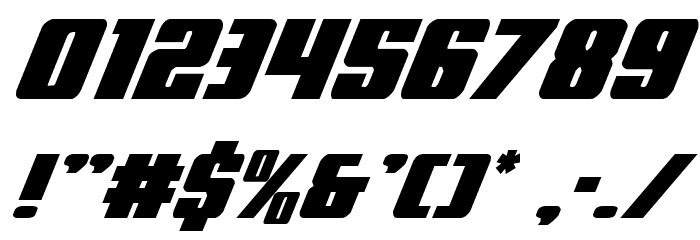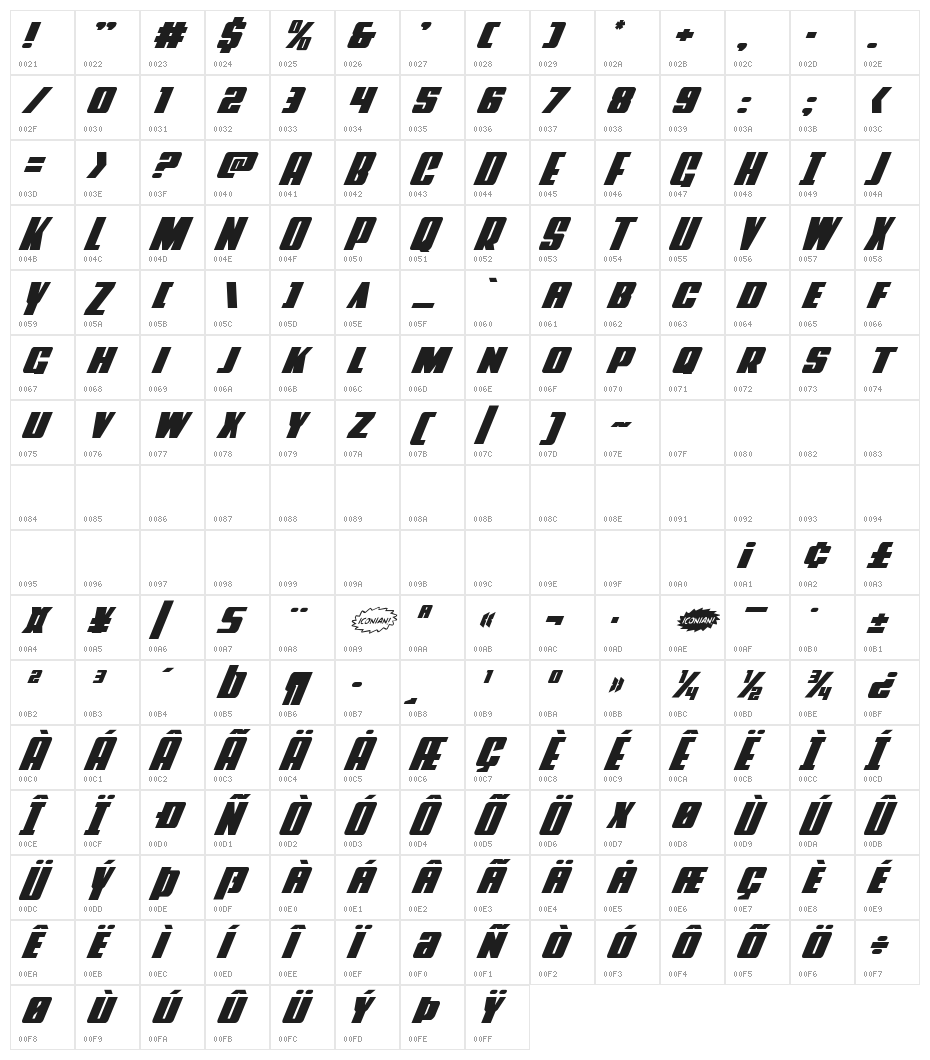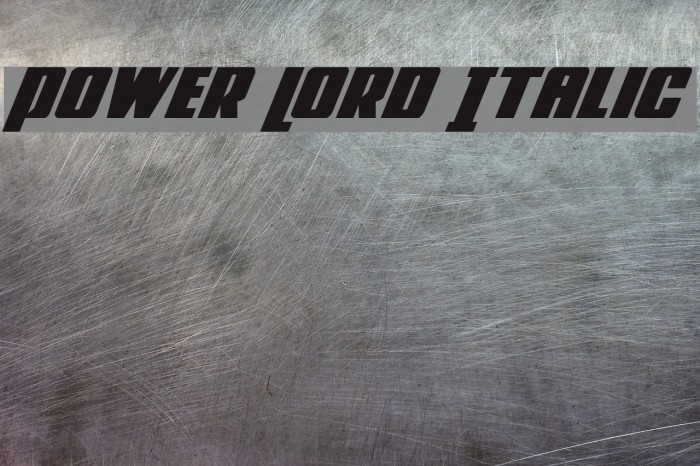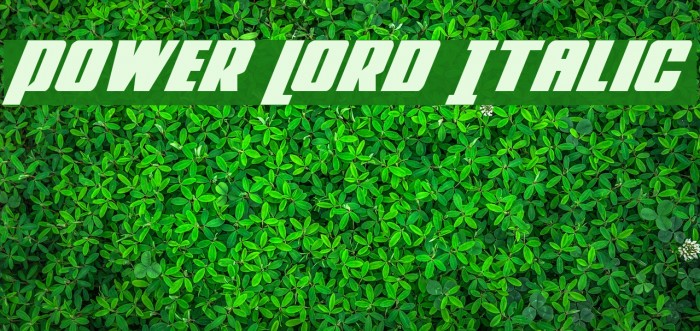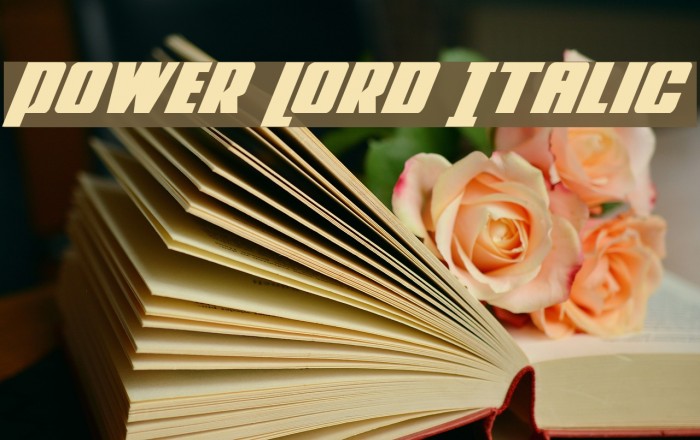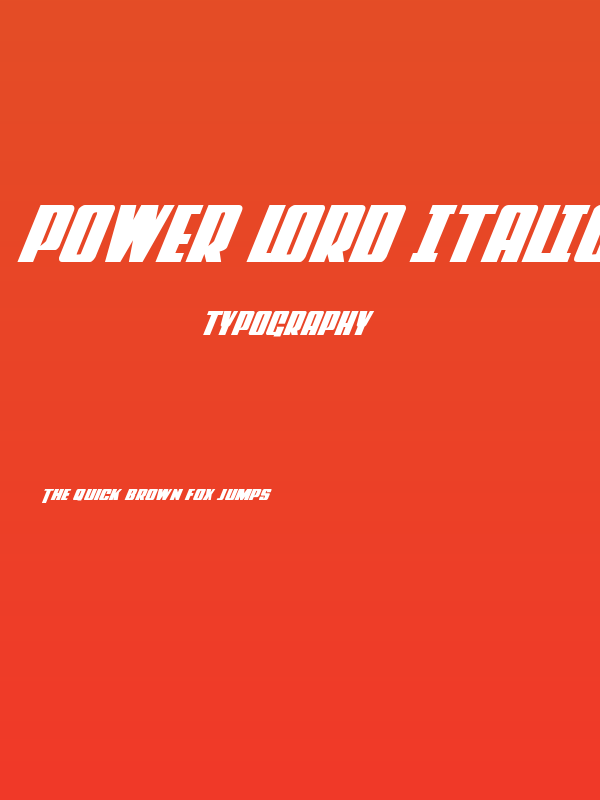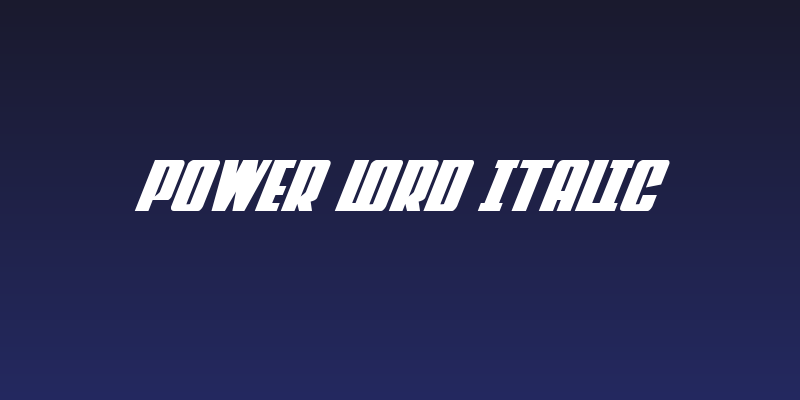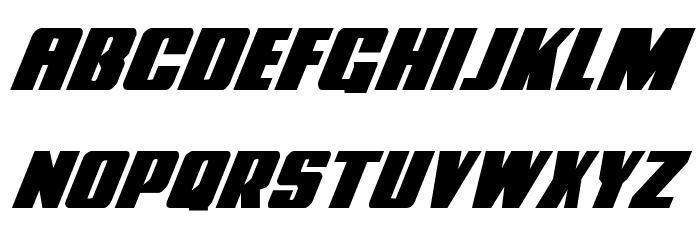
Power Lord Italic Font
Power Lord Italic Description
This font features a bold and dynamic italic style, characterized by its strong, angular lines and sharp edges. The letters are slanted, giving a sense of motion and energy, which is further emphasized by the thick strokes and condensed letterforms. The uppercase and lowercase letters maintain a consistent style, with a slight variation in size and proportion. Numbers and special characters are designed to match the bold and assertive aesthetic, making them stand out prominently. The overall appearance is modern and impactful, suitable for designs that require a strong visual presence.
| Proposed Projects | Ideal for sports branding, action movie posters, dynamic logos, and any project needing a bold, energetic typeface. |